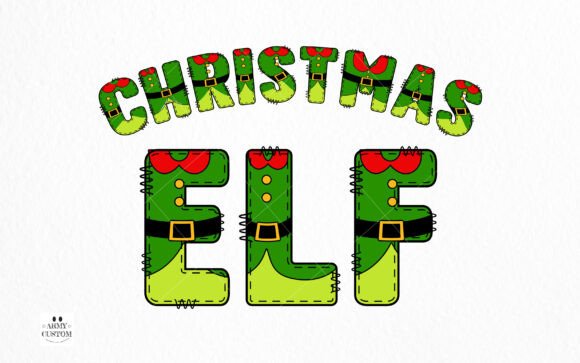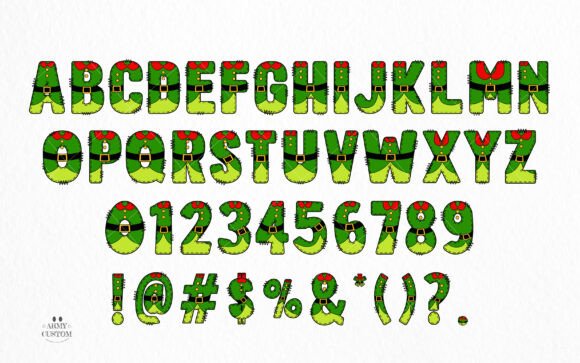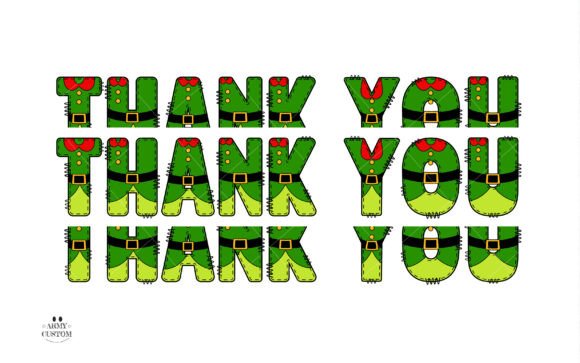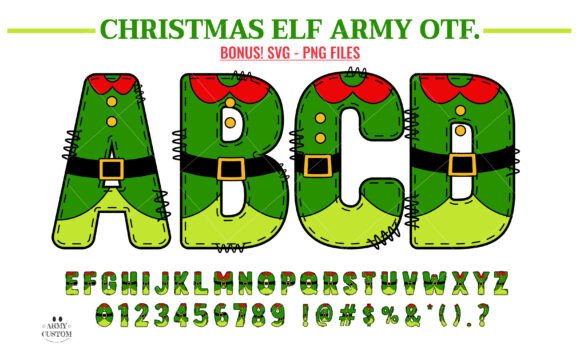
Introducing the Christmas Elf Army Font: A Whimsical Addition to Your Holiday Design Toolkit
The holiday season is upon us, and with it comes the need for festive and fun design elements to make our projects stand out. If you’re a designer, crafter, or simply someone who loves to get creative during the holidays, you’re in luck! The Christmas Elf Army Font is here to bring a dash of whimsy and merriment to your holiday designs. Inspired by the adorable antics of Santa’s helpers, this font is the perfect addition to your holiday design toolkit.
What is the Christmas Elf Army Font?
The Christmas Elf Army Font is a playful, jovial font that captures the spirit of the holiday season. With its unique and quirky style, this font is sure to add a touch of magic to any design project. Whether you’re creating holiday decorations, greeting cards, or social media graphics, the Christmas Elf Army Font is the perfect choice. Its whimsical design makes it an ideal font for creating vibrant and eye-catching designs that are sure to delight.
Key Features of the Christmas Elf Army Font
- Playful and Whimsical Design: The Christmas Elf Army Font features a unique and quirky design that’s sure to add a touch of magic to your holiday designs.
- Perfect for Holiday Projects: Whether you’re creating holiday decorations, greeting cards, or social media graphics, this font is the perfect choice.
- Inspired by Santa’s Helpers: The font’s design is inspired by the adorable antics of Santa’s helpers, making it a fun and festive addition to your holiday designs.
- Adds a Touch of Whimsy: The font’s playful design adds a touch of whimsy to your holiday designs, making them more fun and engaging.
- Perfect for Holiday Season: The Christmas Elf Army Font is specifically designed for the holiday season, making it a great choice for any holiday project.
- Easy to Read: The font is easy to read, even at small sizes, making it perfect for use on a variety of design projects.
- Versatile: The Christmas Elf Army Font can be used on a variety of design projects, from holiday decorations to social media graphics.